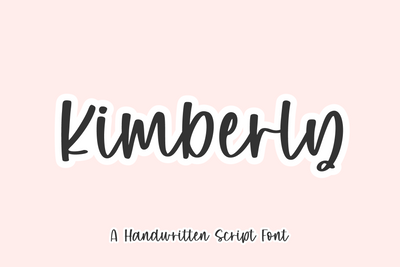
Kimberly – A Handwritten Script Font
Kimberly is a handwritten script font. kimberly perfect for your design project such wedding invitation, greeting card, t-shirt/apparel, quotes and many more.